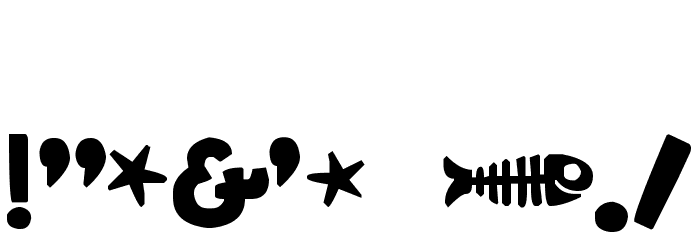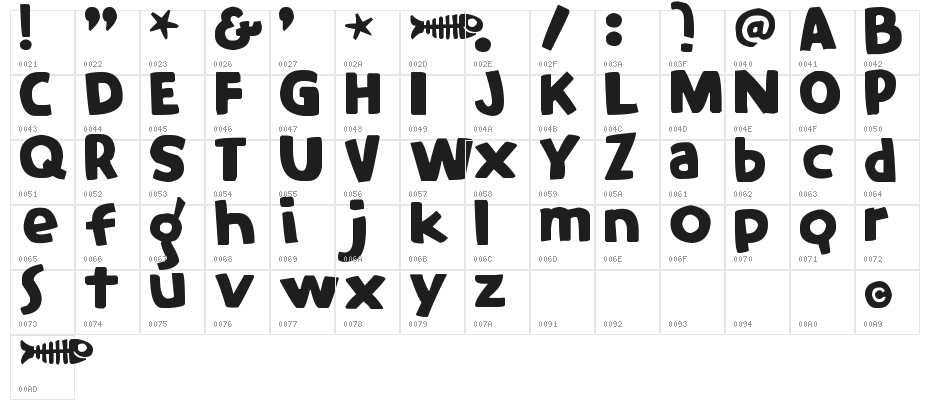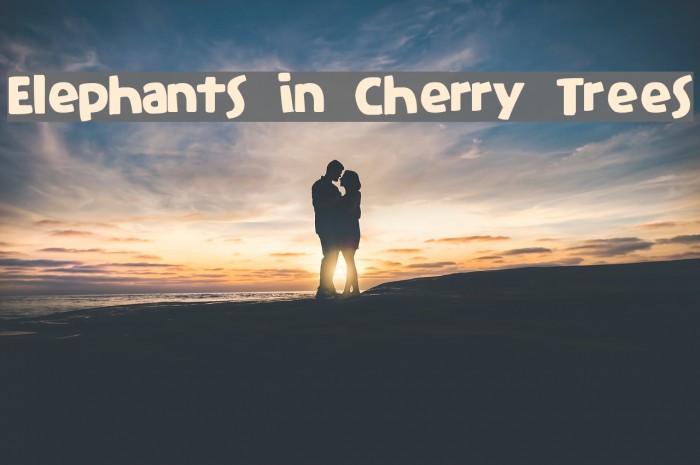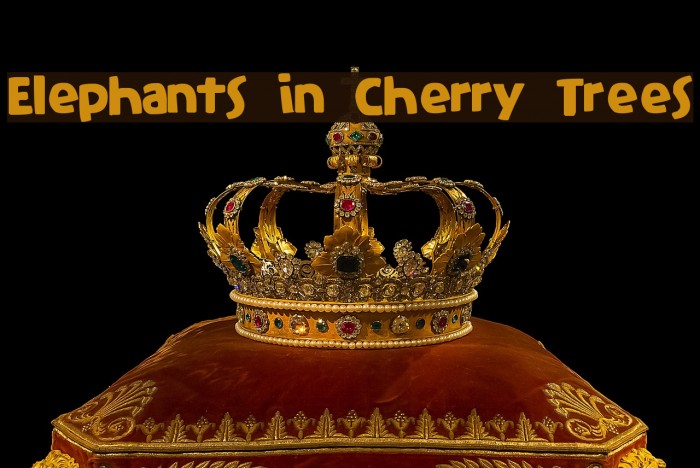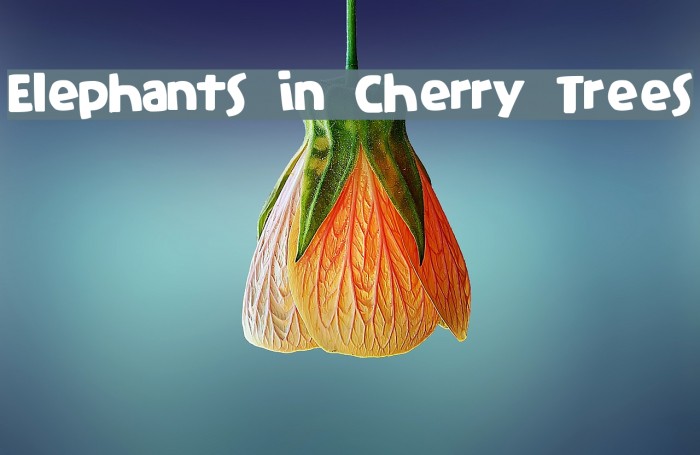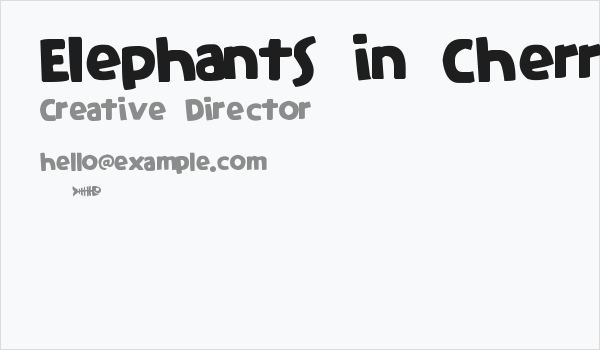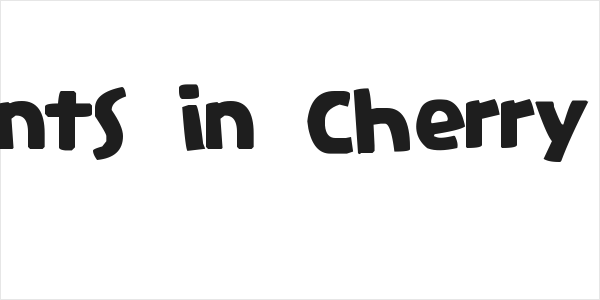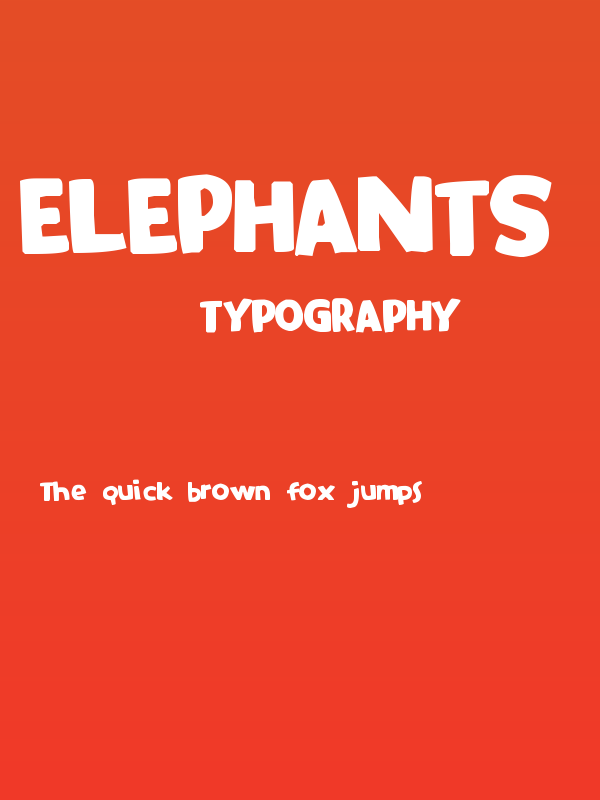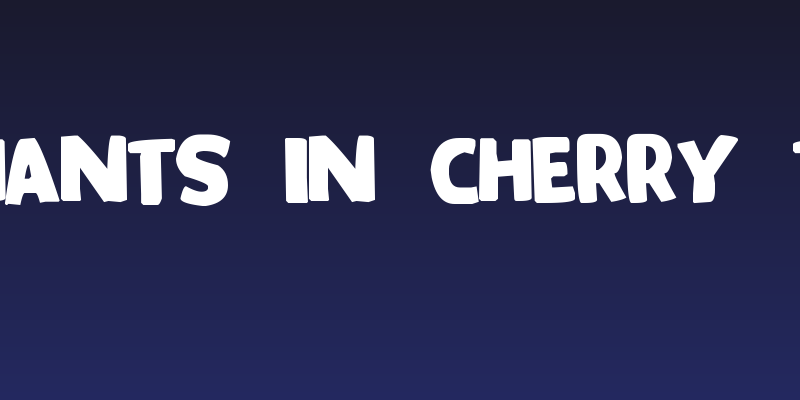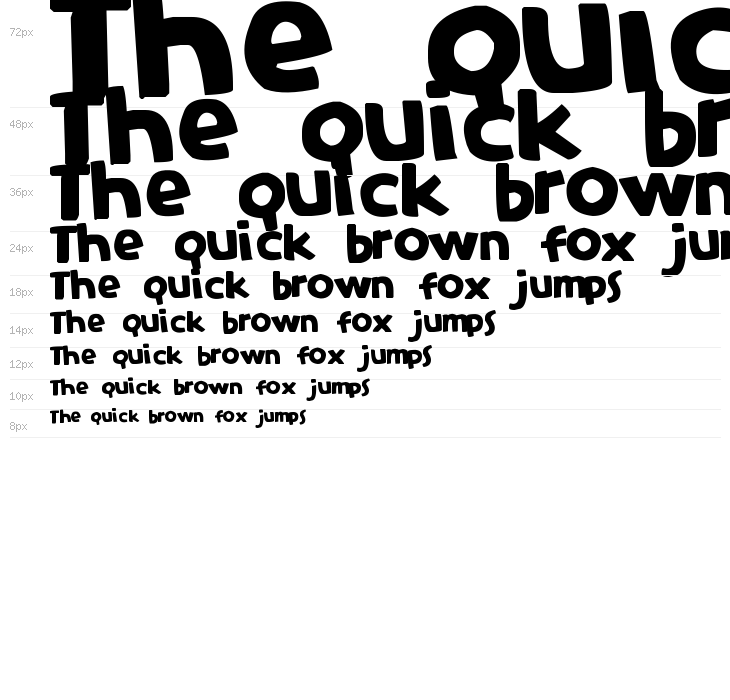
Elephants in Cherry Trees Font
Elephants in Cherry Trees Description
This playful and bold font features a whimsical and chunky design, characterized by its uneven and slightly irregular letterforms. The letters have a hand-drawn quality, with rounded edges and a lively, energetic feel. The uppercase and lowercase characters maintain a consistent style, creating a cohesive look. The font includes a variety of special characters, adding to its versatility. Its unique style makes it stand out, perfect for projects that require a fun and informal touch.